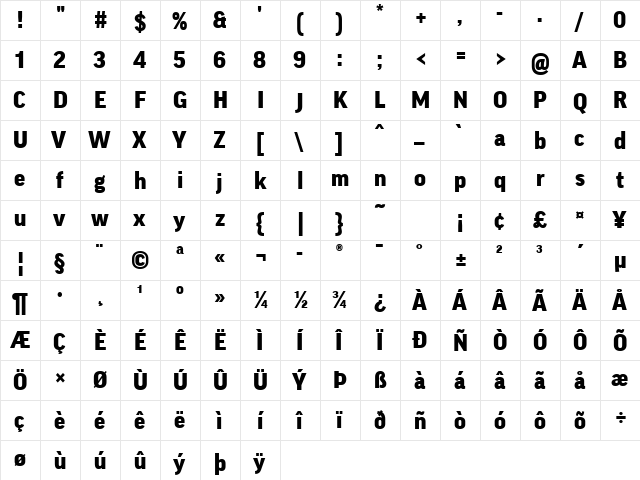
GoodLF-Black Regular
| Foundry | FSI Fonts und Software GmbH |
| Designer | Lukasz Dziedzic |
Design Context for GoodLF-Black Typeface
GoodLF-Black is a composed and adaptable typeface that performs quietly and consistently across a wide range of design contexts.